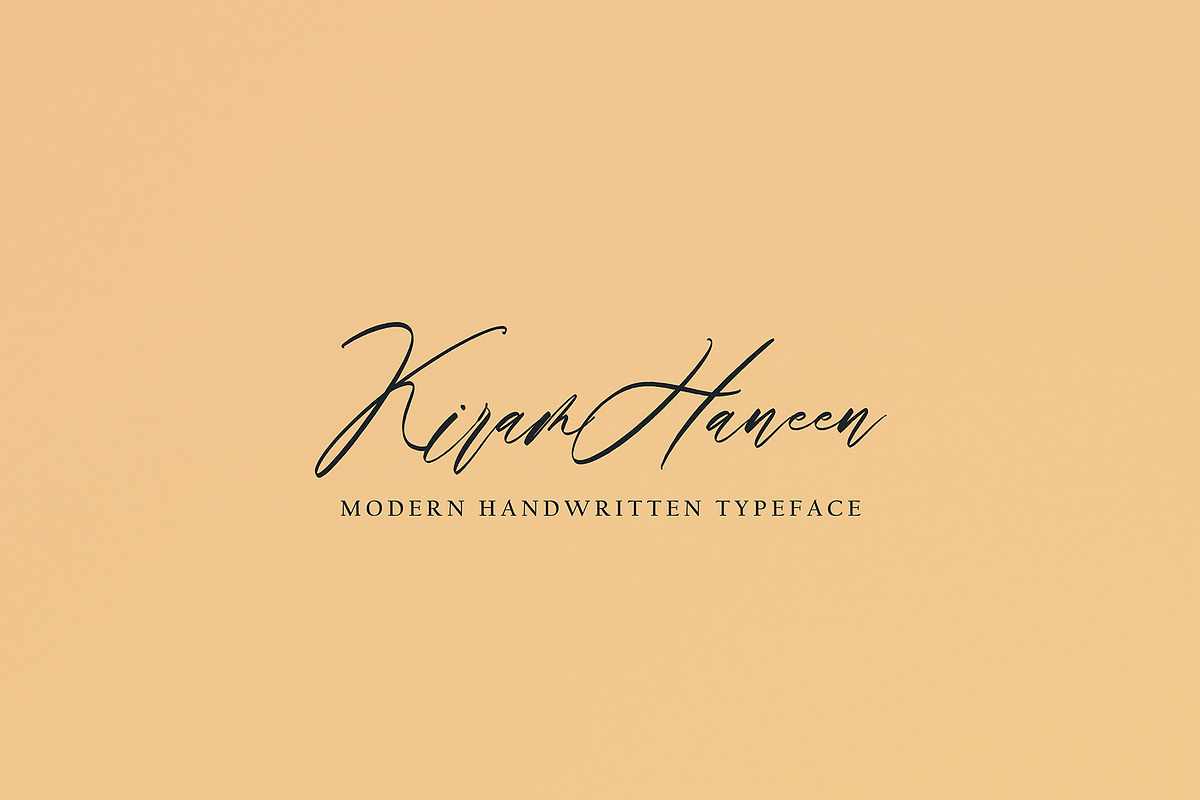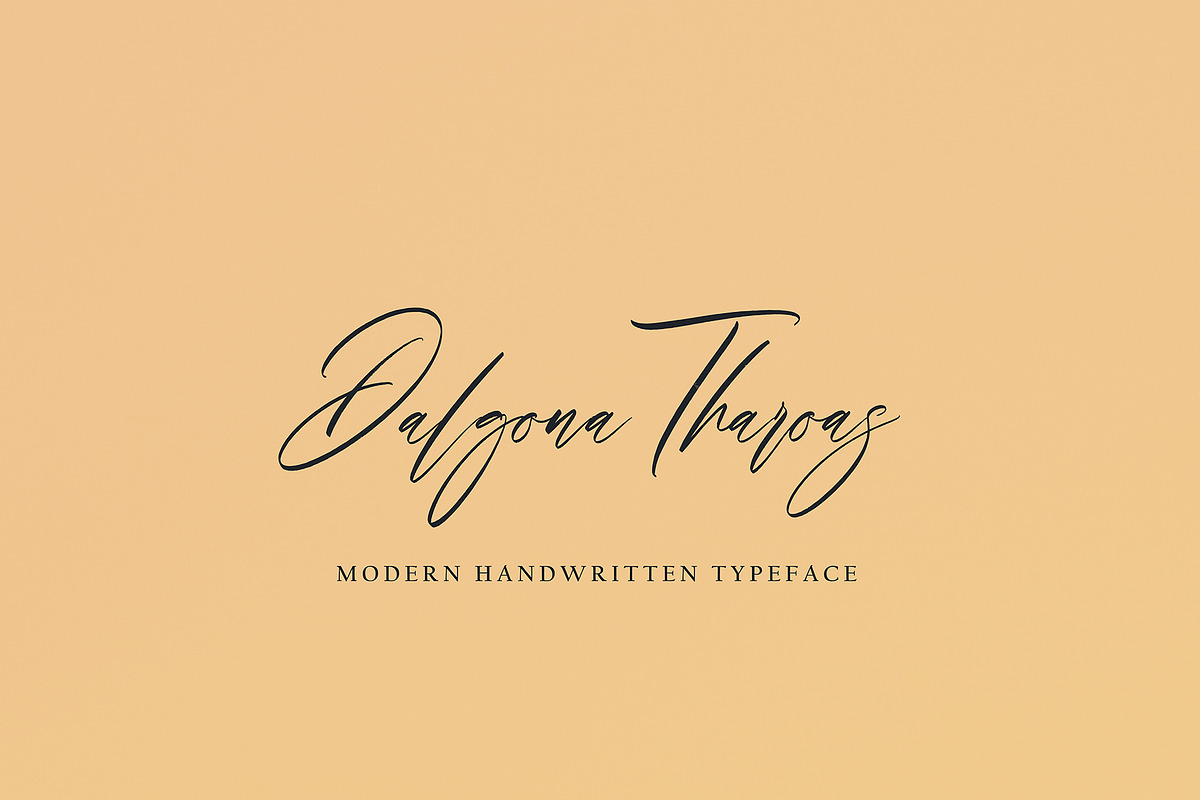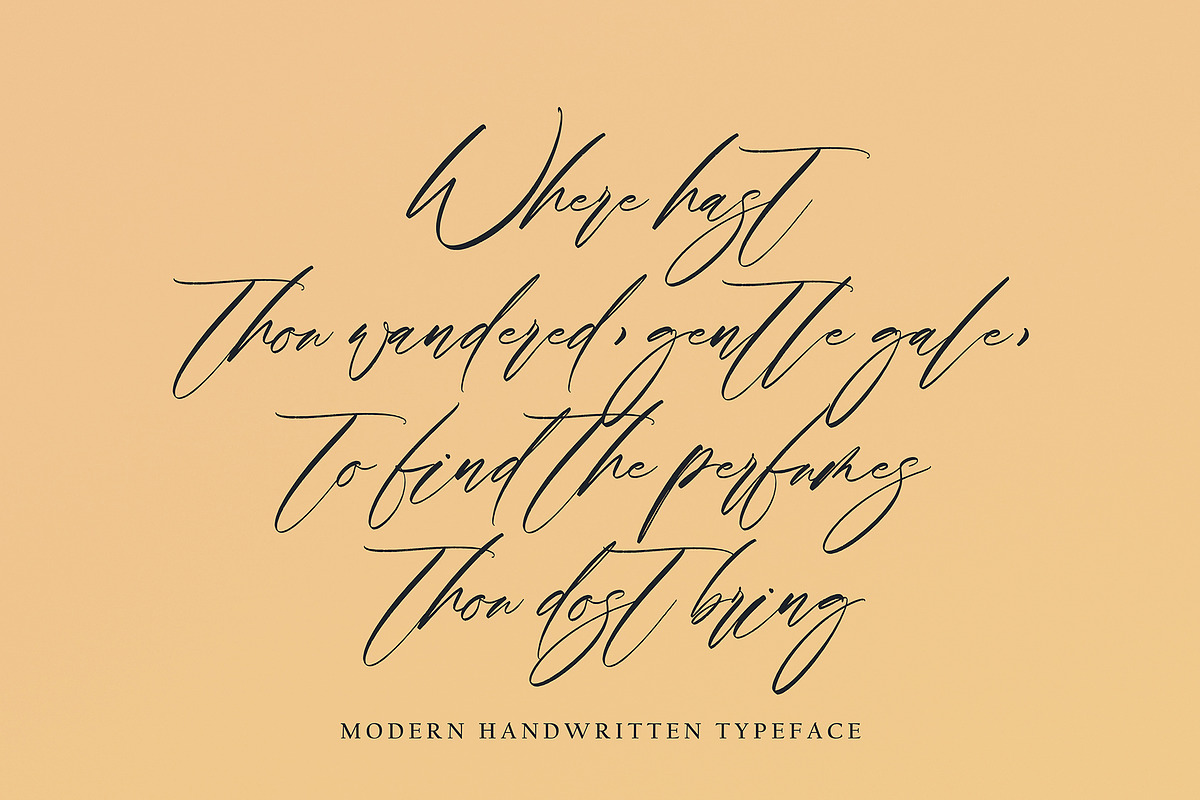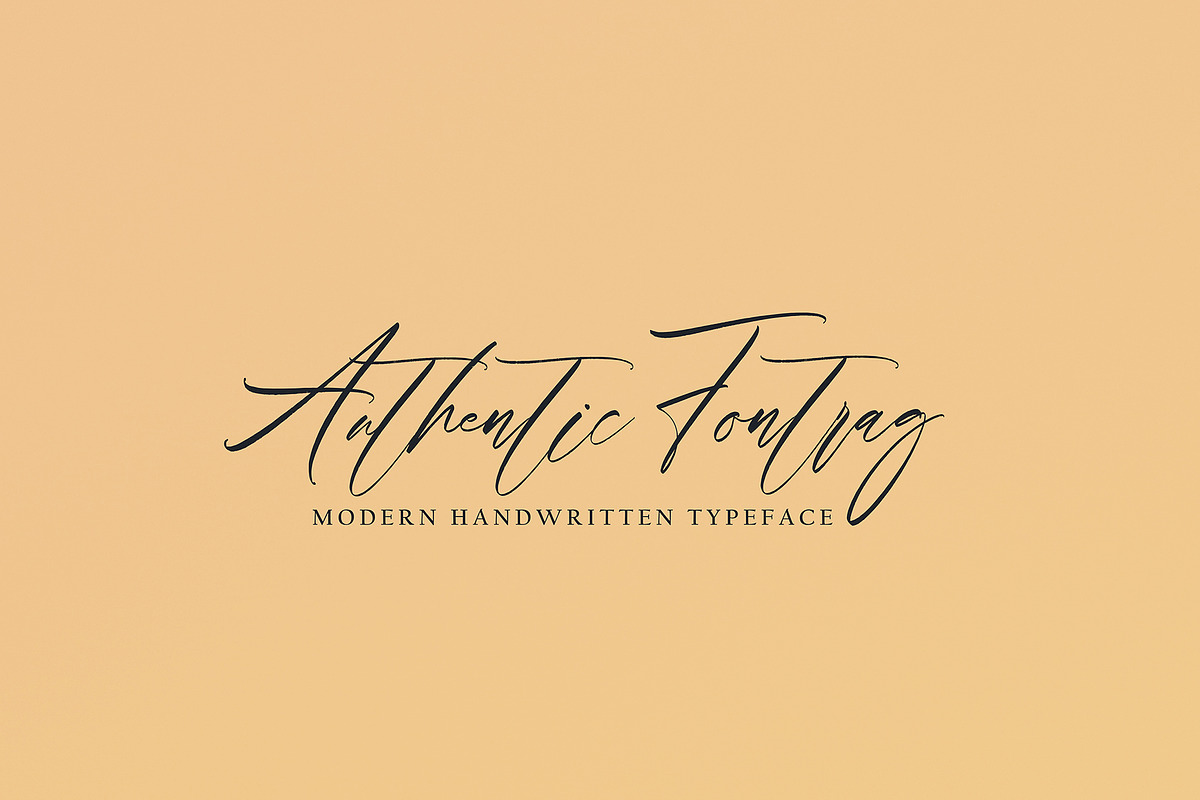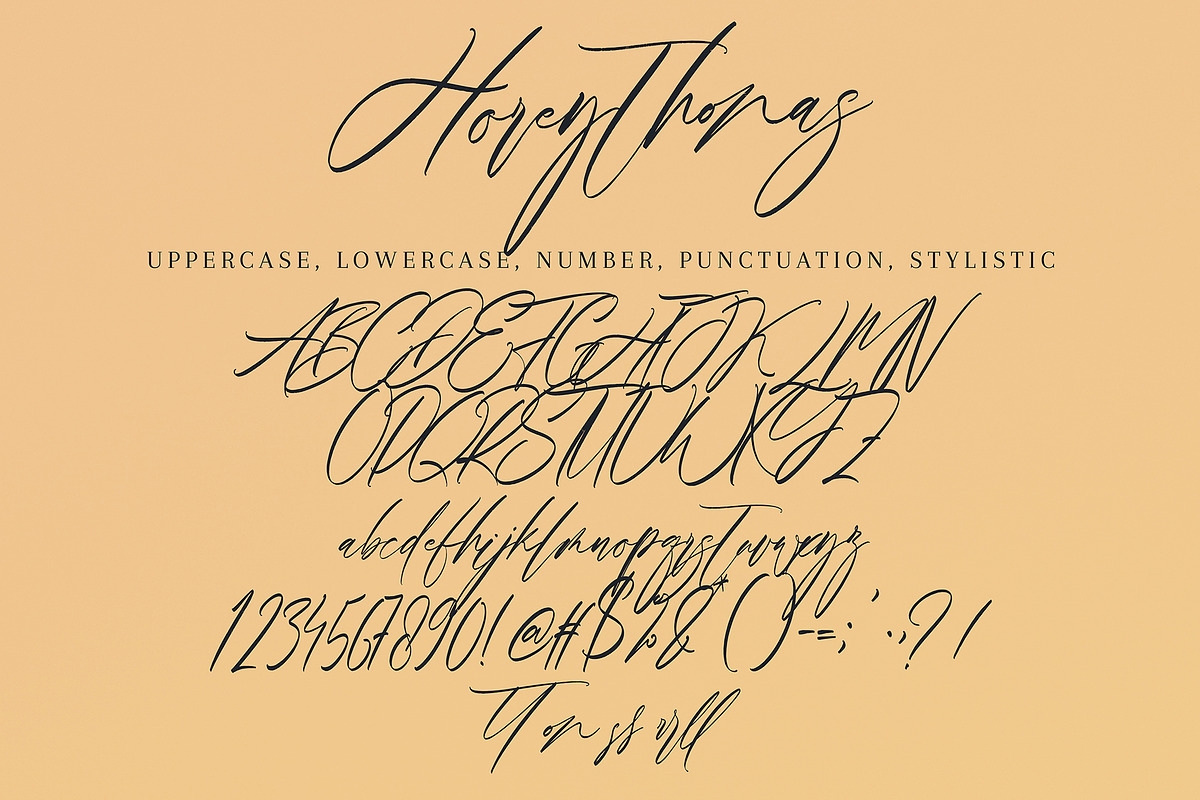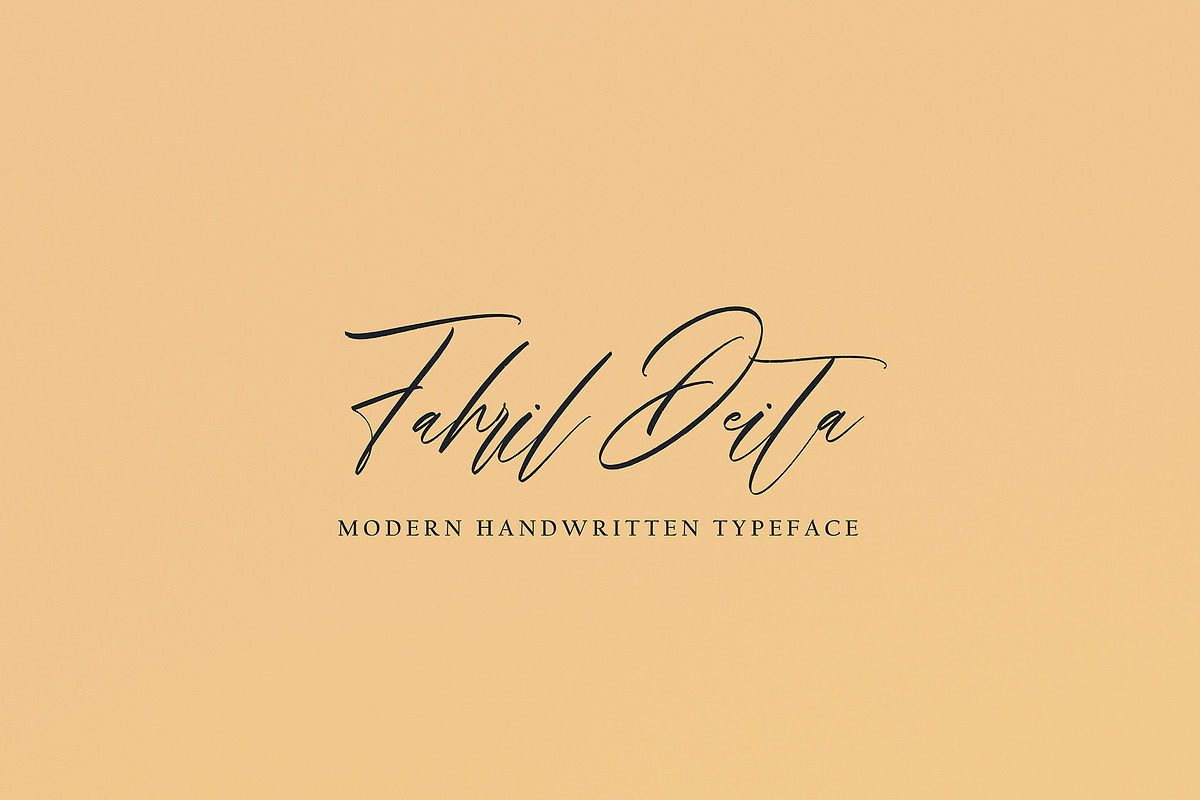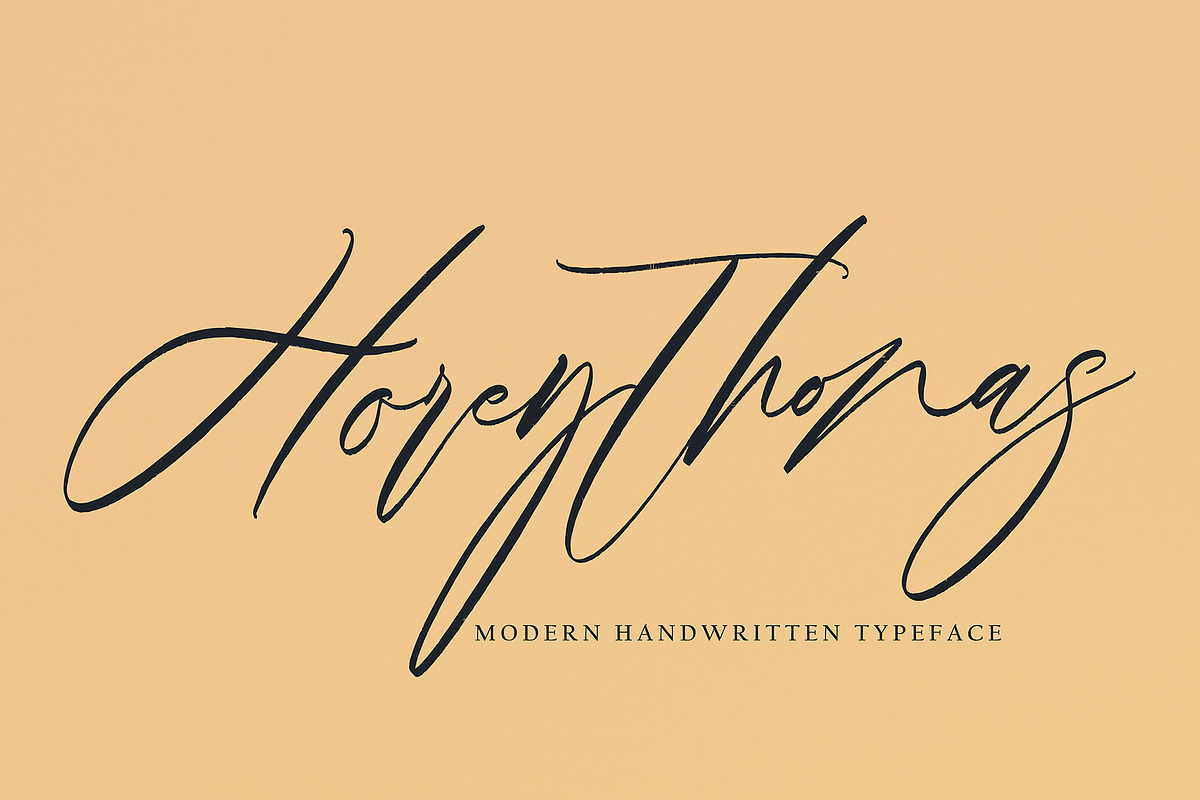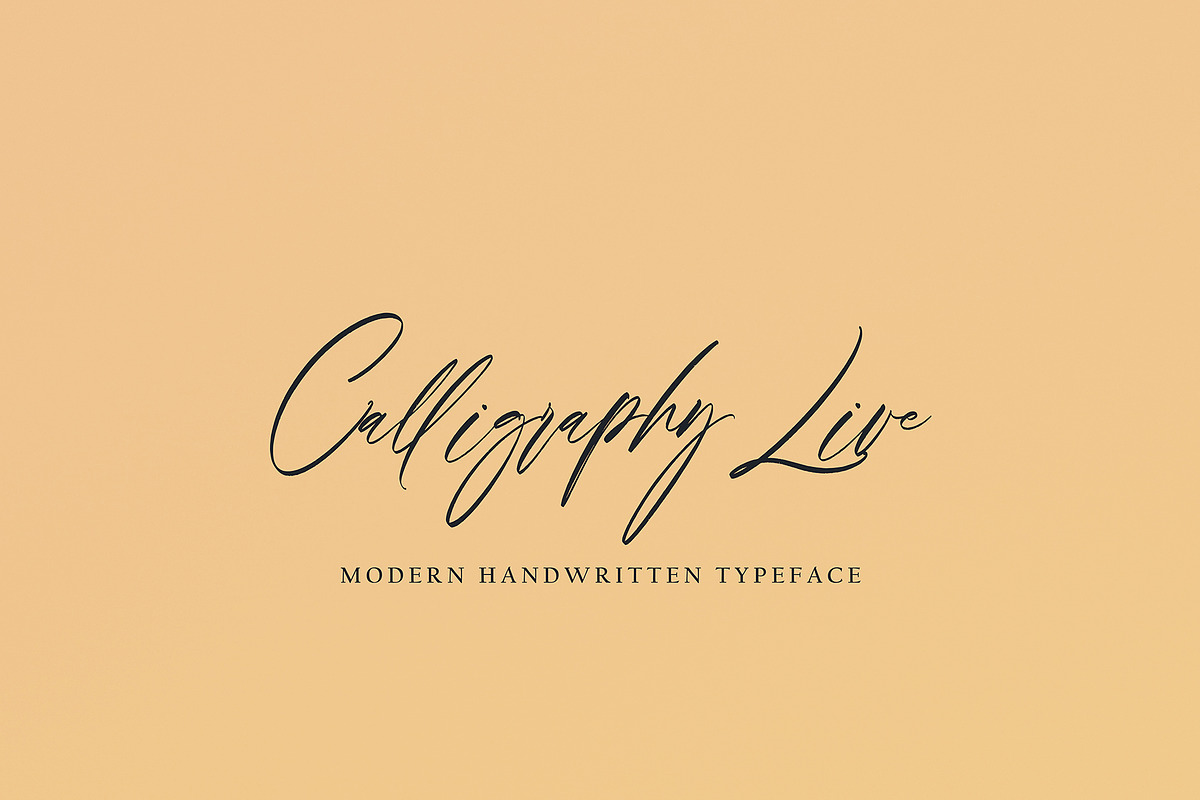
Horeythonas
Horeythonas with new style, this font will perfect for many different project ex: quotes, logo, blog header, poster, banding, letter, invitation, stationery, etc...